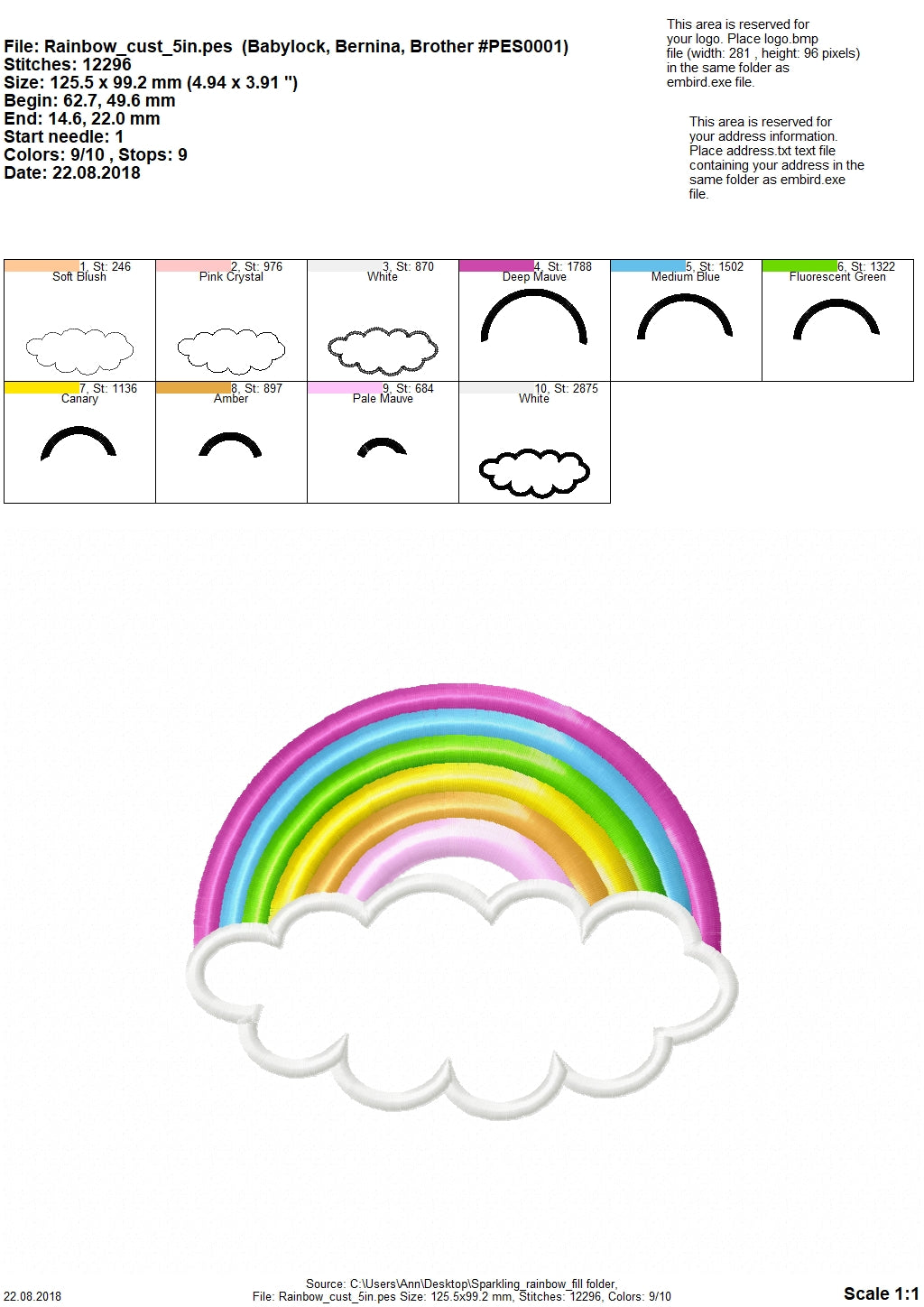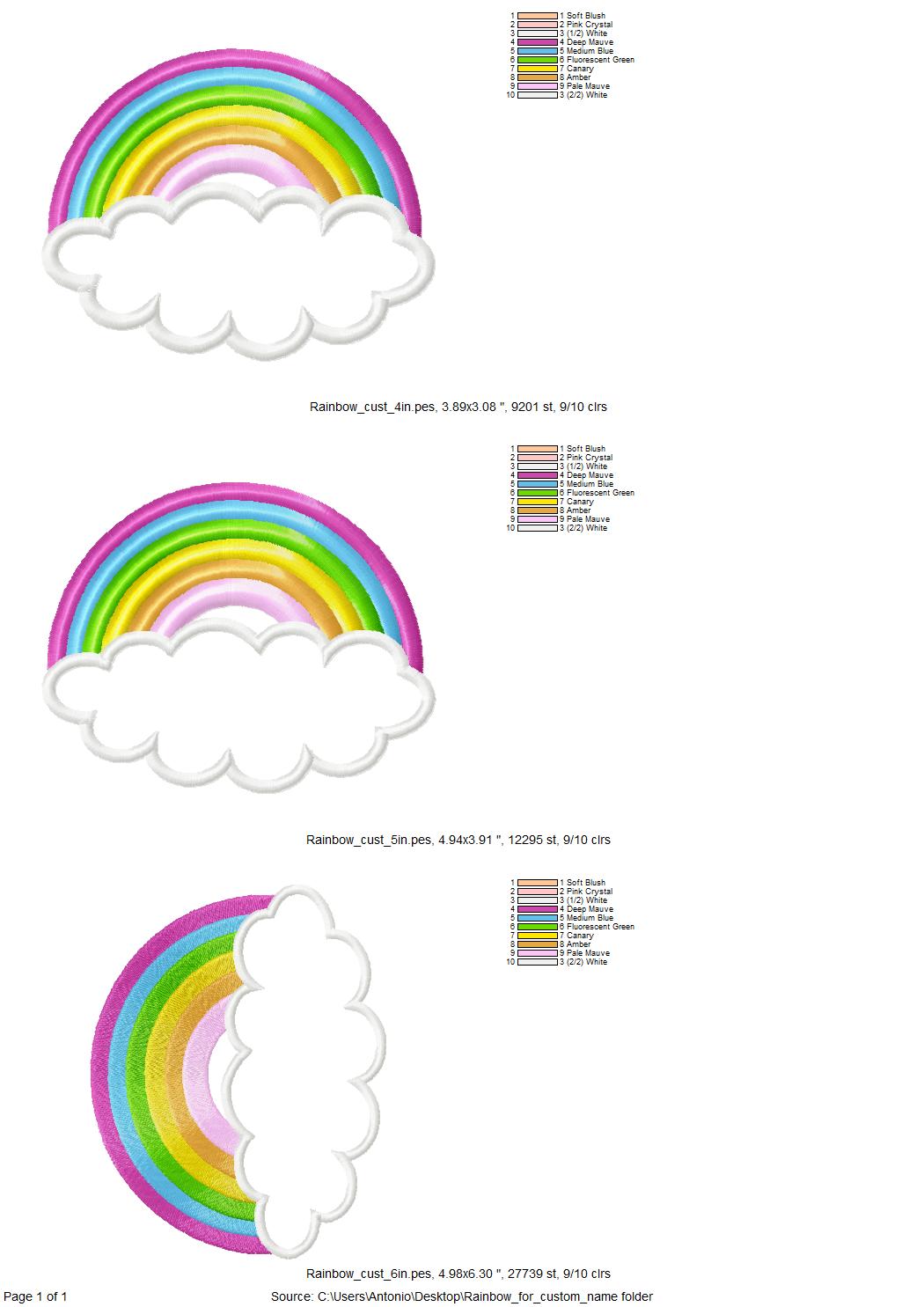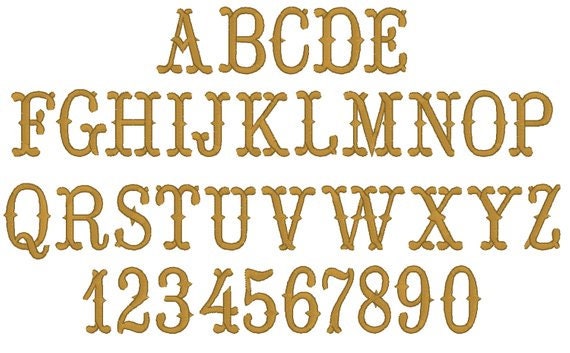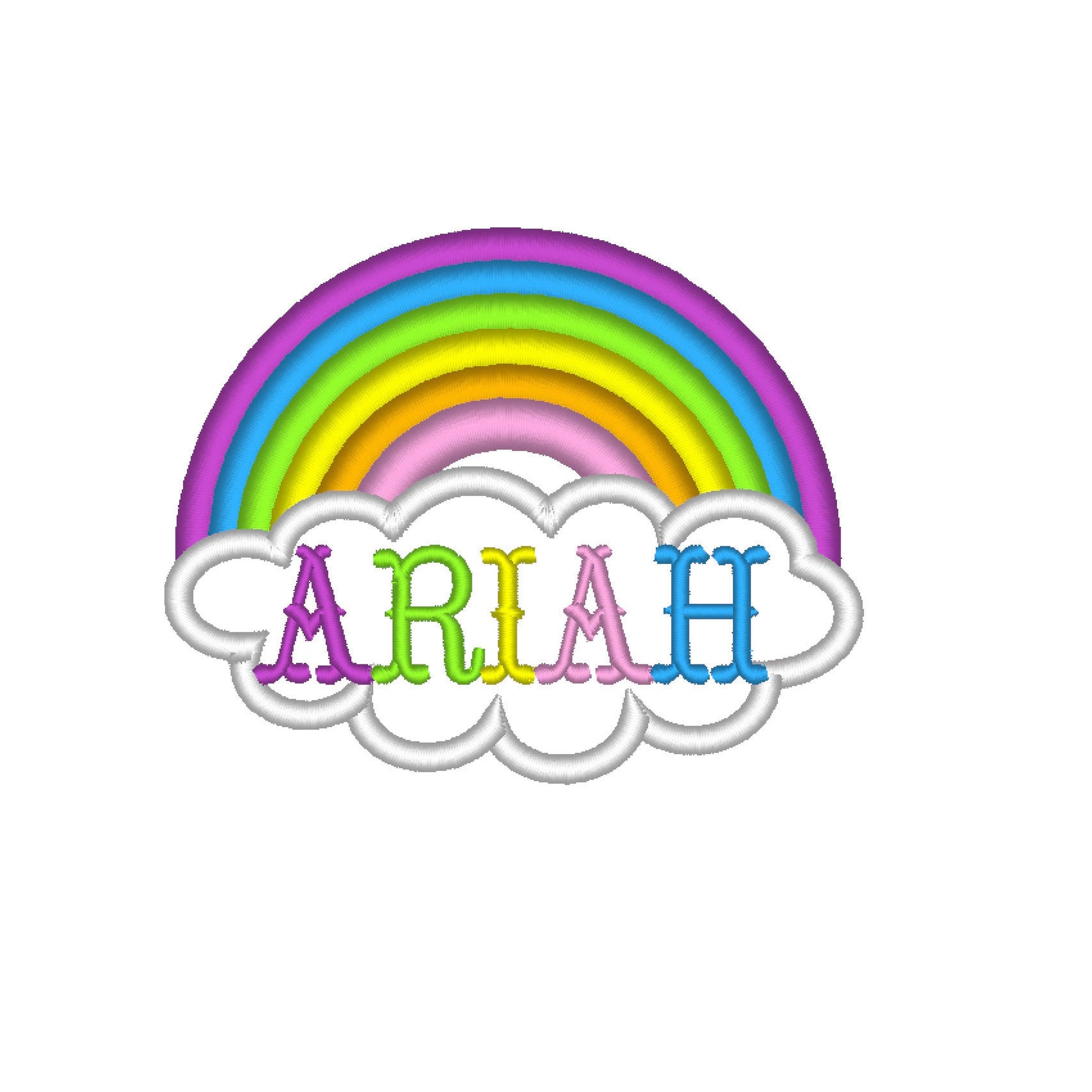
Rainbow with Cloud for Custom Name
Rainbow Sizes (inches): 4", 5", 6"
Font Sizes (inches): 1", 1.3", 1.5", 2",
Or click to open the linkAn applique rainbow with a cloud to hold a custom name, plus a mini font. Sweet for baby gifts, kids' shirts and nursery pillows.
The rainbow and cloud come in three sizes: 4, 5 and 6 inches. The mini font comes in four sizes from 1 to 2 inches and includes uppercase letters A to Z and numbers 0 to 9.
- Rainbow with cloud name applique
- 3 sizes: 4, 5 and 6 in
- Mini font, uppercase A to Z, numbers 0 to 9